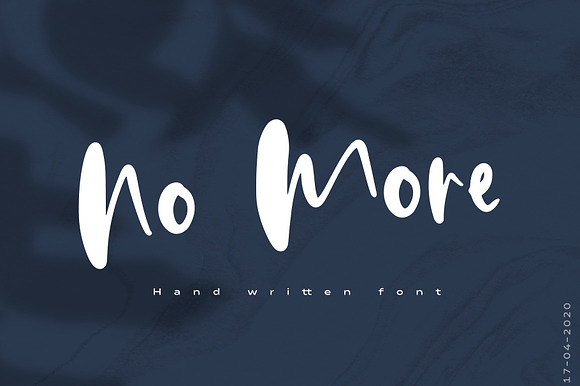
No More | Hand Written Font
I just finished my new font.
No More, It's perfect for your project.
This handwritten font is ideal for branding and decorates any project.
Every single letter has been creative carefully. This font is perfect for making your set of invitations, Brand, blog posts, DIY projects, greeting cards, labels, quotes, posters, wall art, branding, packaging, websites, photo & photography overlays, signs, window art, scrapbooking, tags and so much more!
No More | Hand Written Font by Artstudio fits naturally into Branding, posters, packaging, typography.